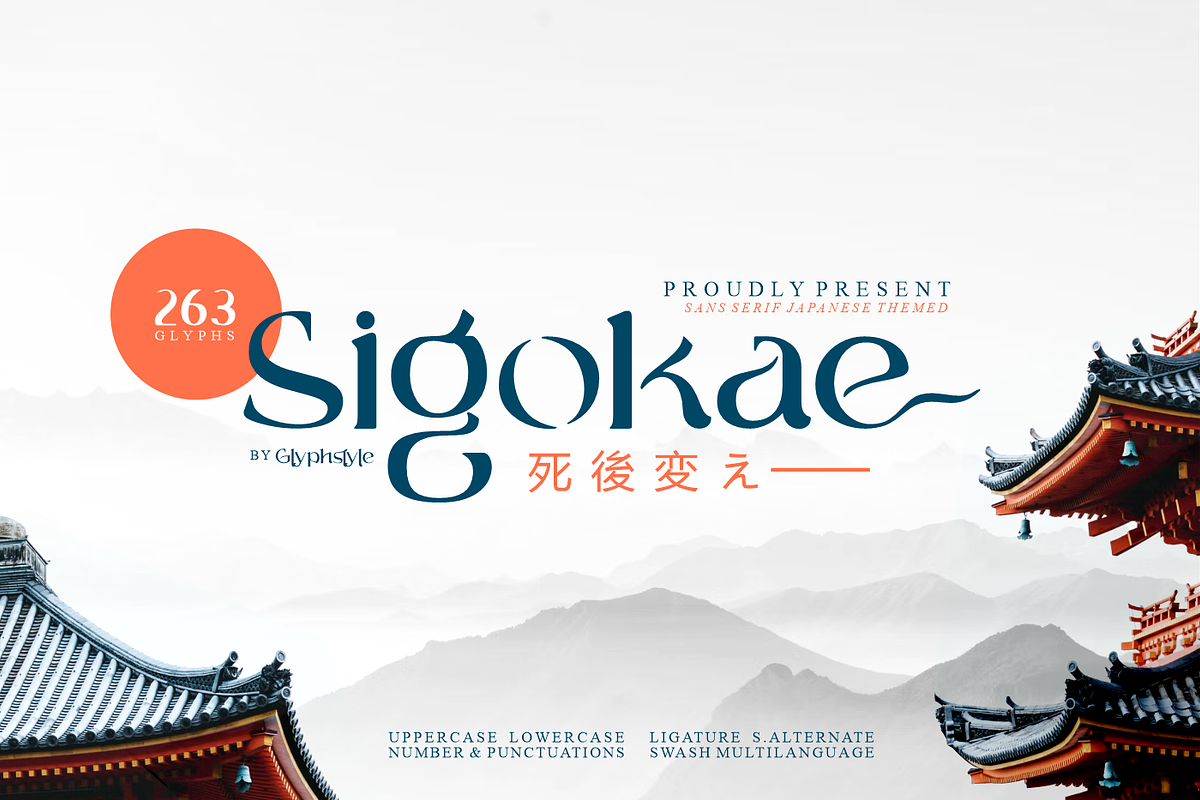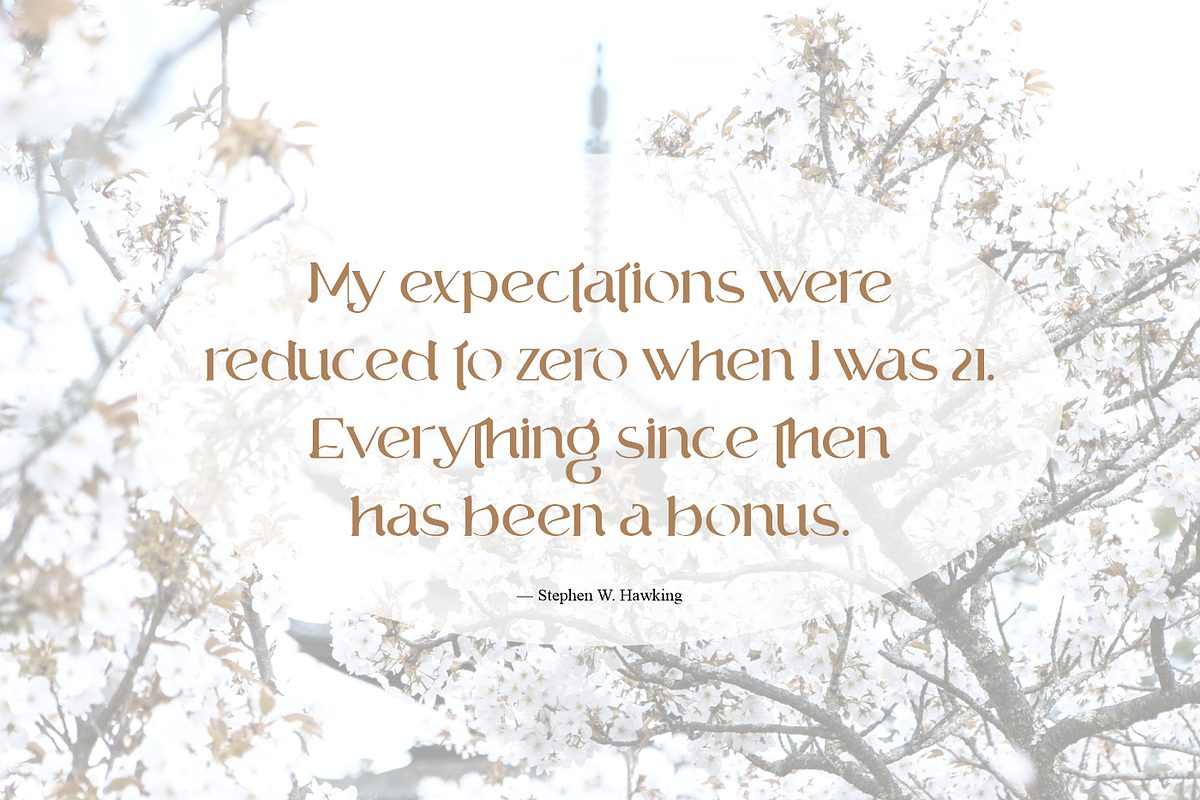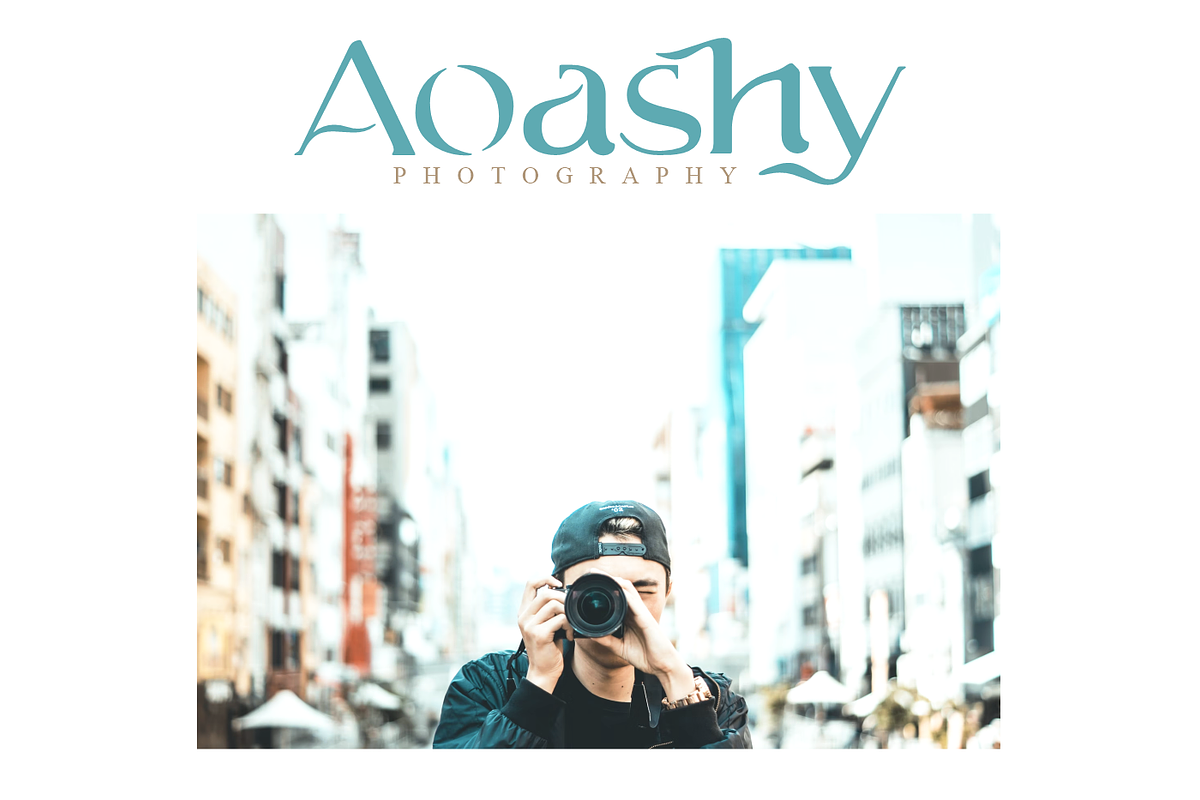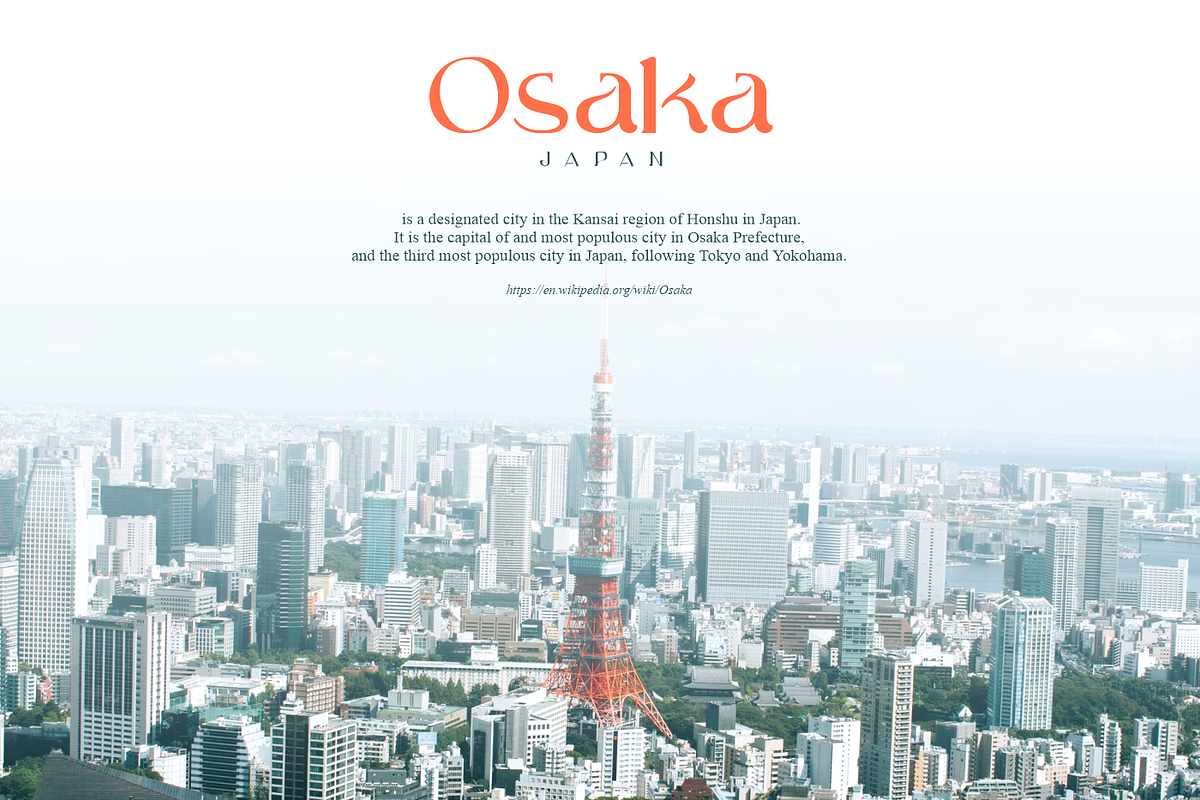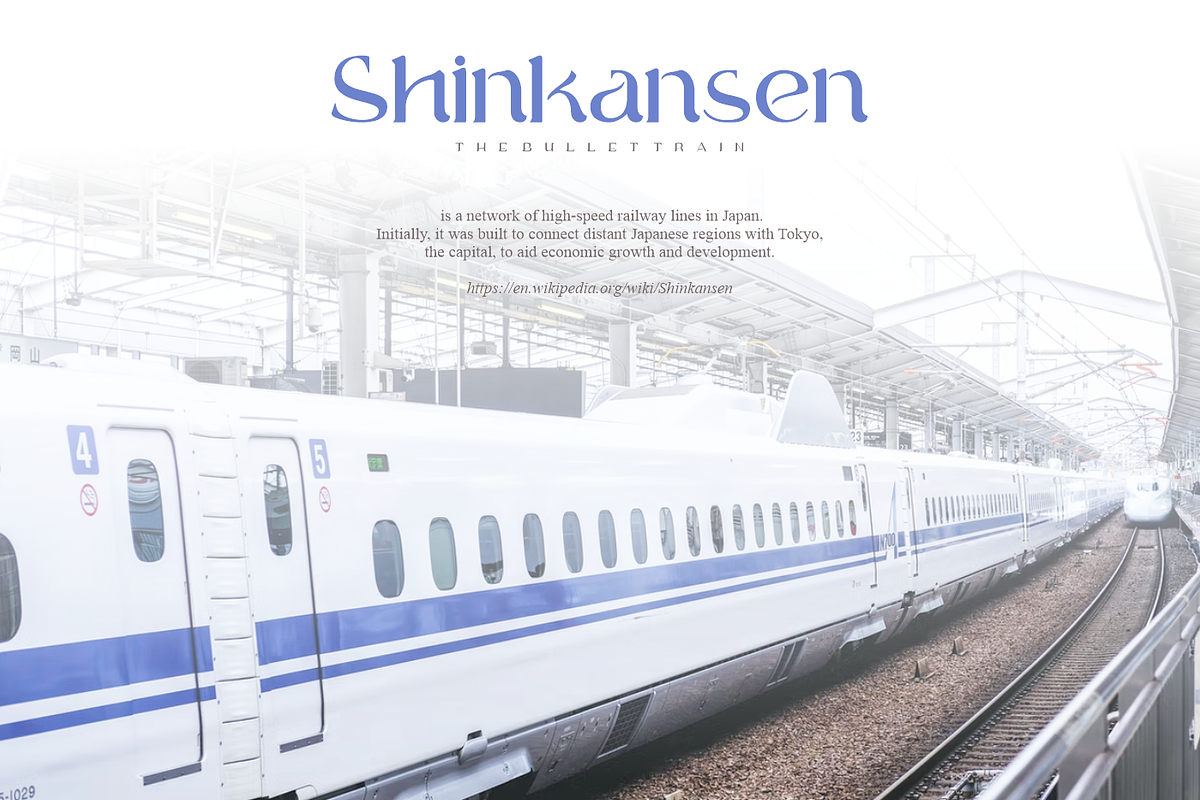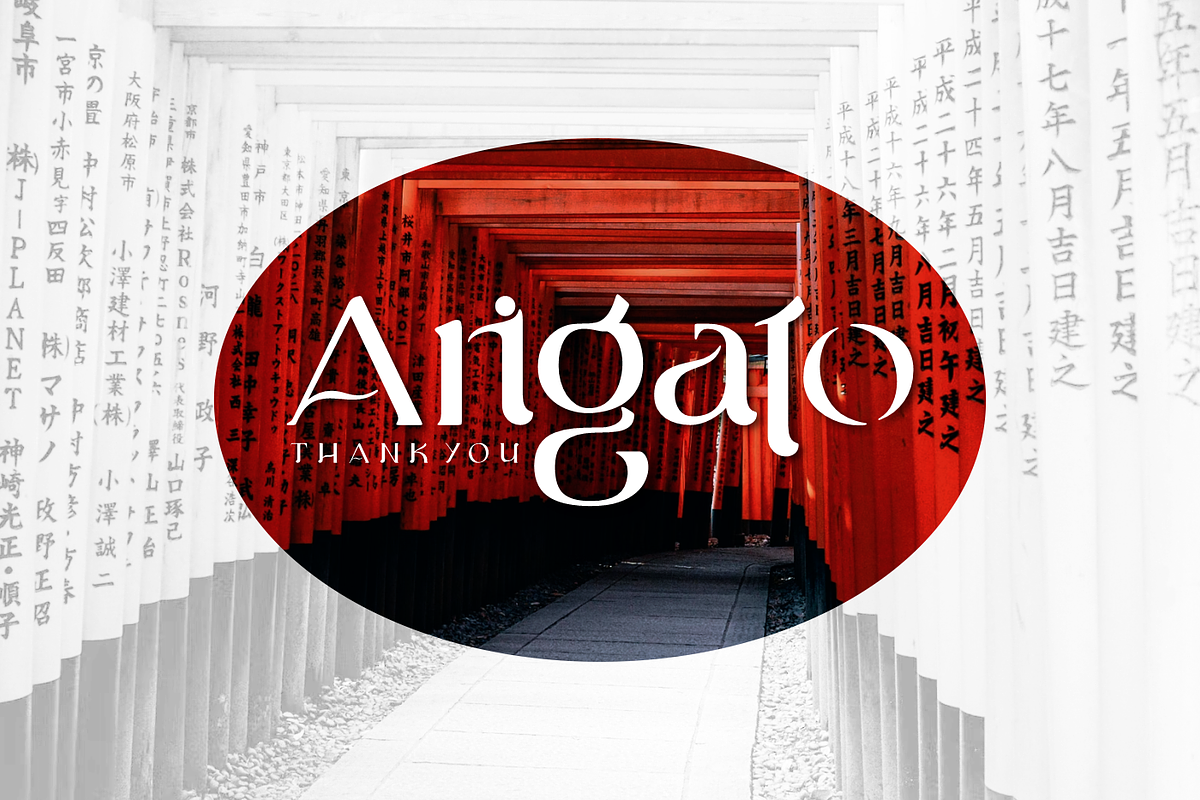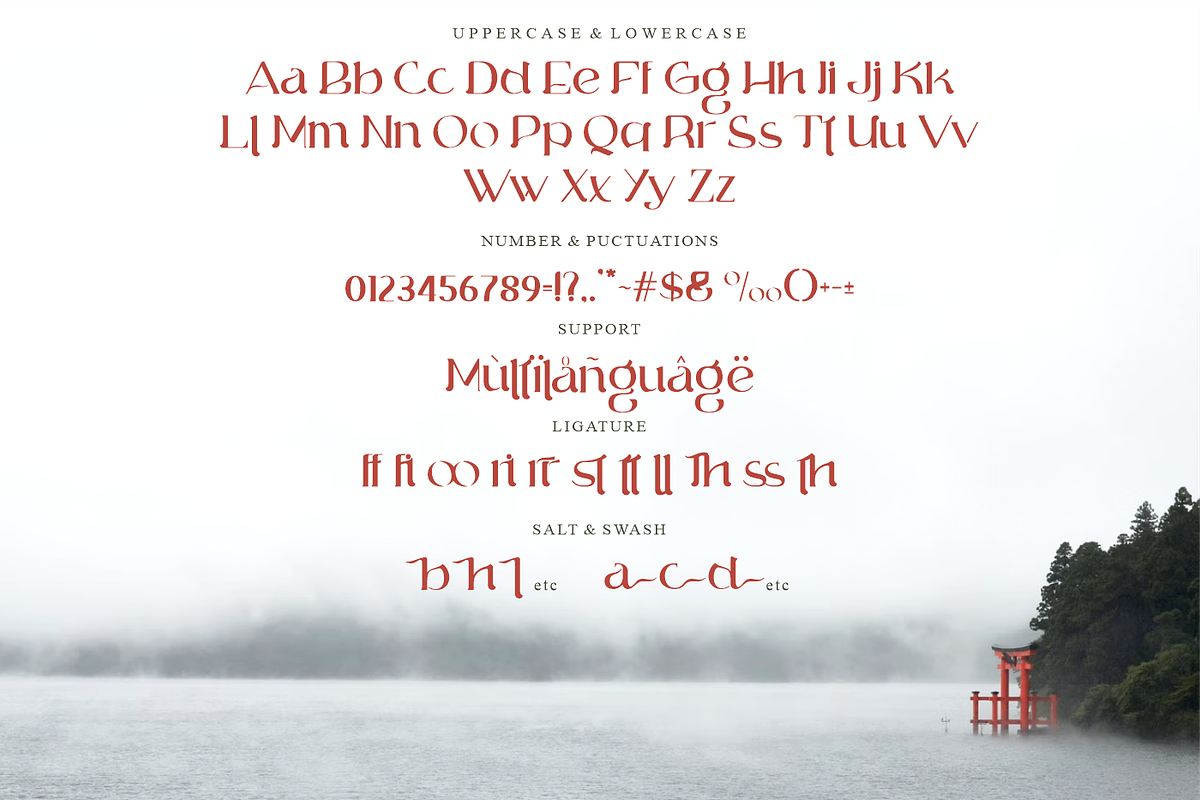
Sigokae Sans Serif Japanese Themed
Sigokae is a sans serif font with a Japanese theme. A simple shape with a combination of distinctive curves with a touch of creativity, this font looks like Japanese letters. Overall this font looks simple and feels Japanese
Sigokae is perfect for branding projects, logos, wedding designs, social media posts, advertisements, product packaging, product designs, labels, photography, watermarks, invitations, stationery, and any project that requires a sense of sans serif japanese themed font.
- Font feature
Uppercase, Lowercase, Numerals & Punctuations, Ligature, alternate, Swash Multilanguage